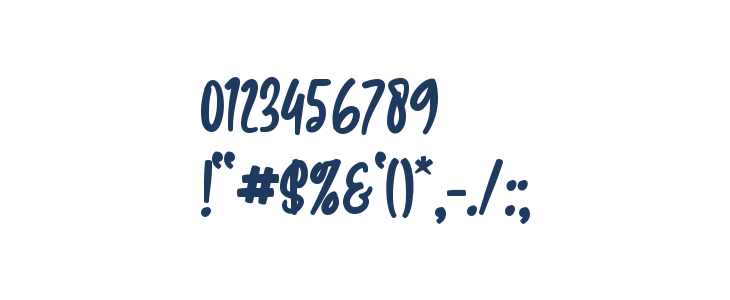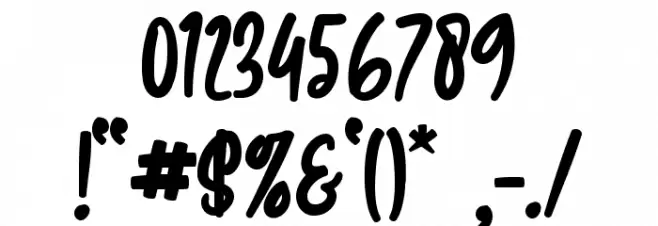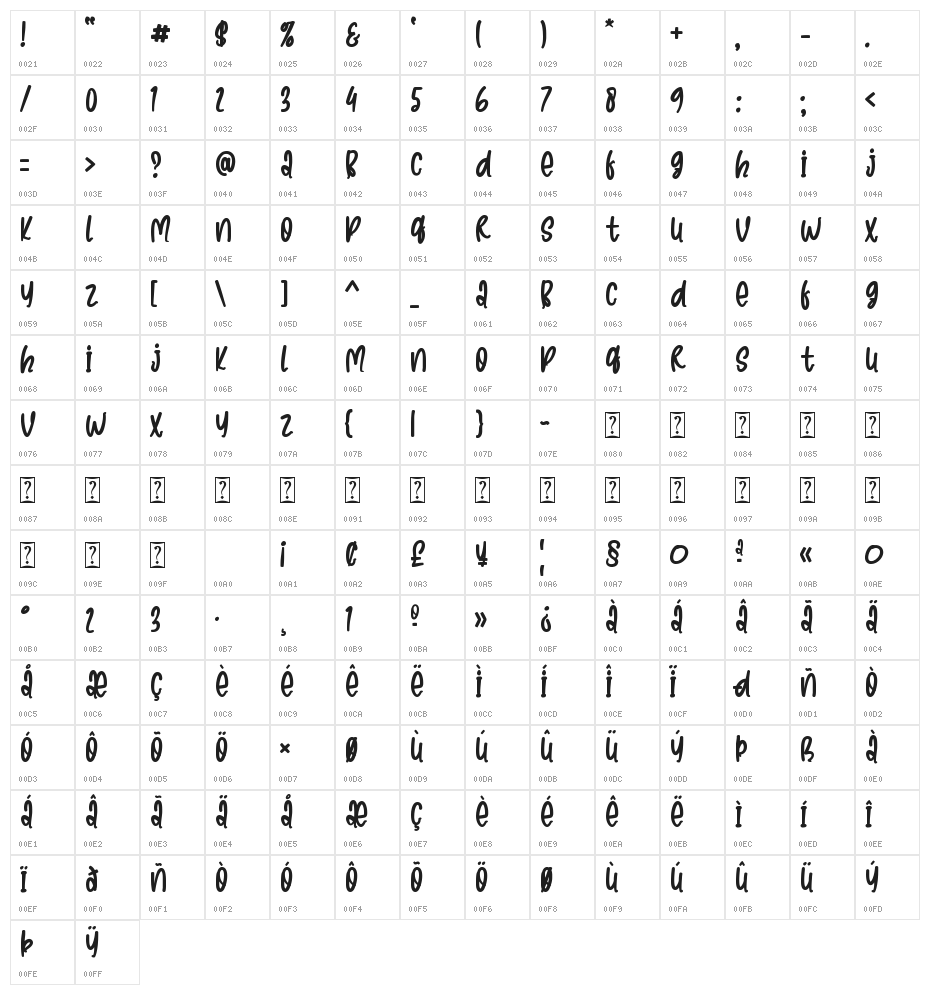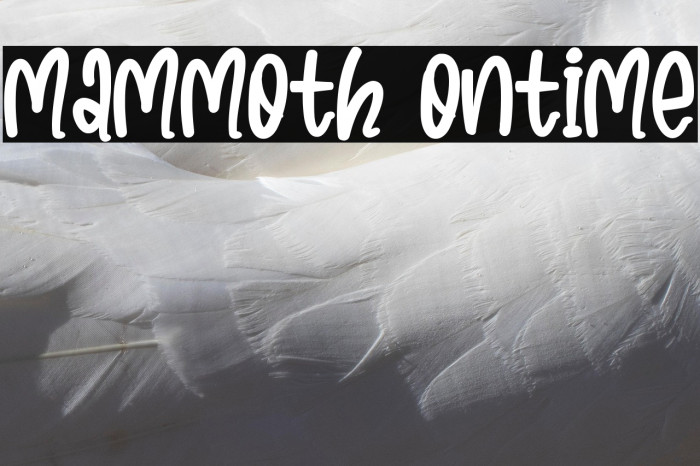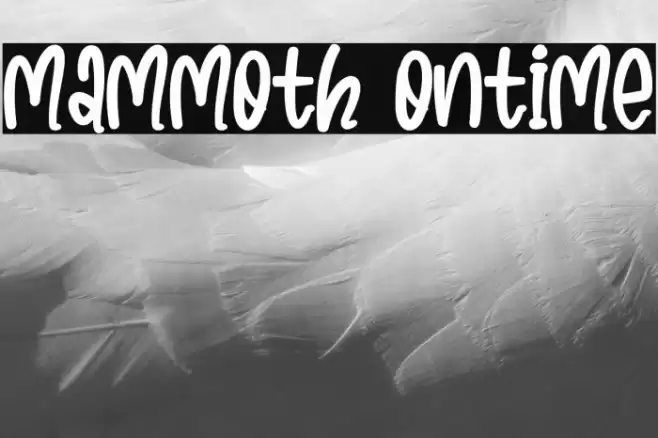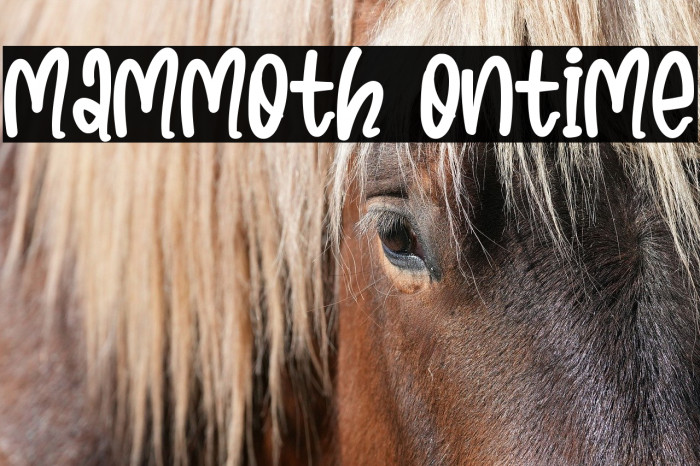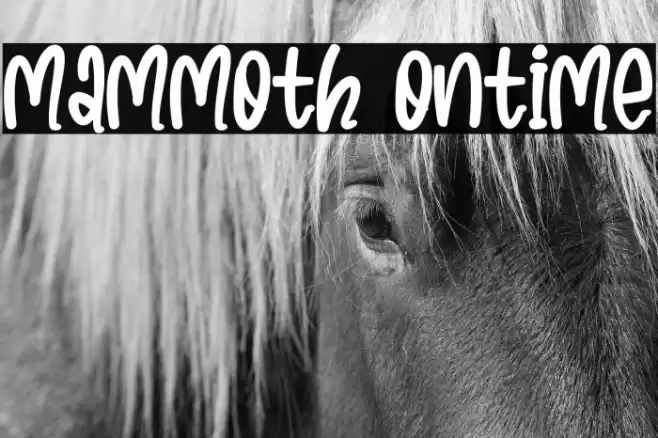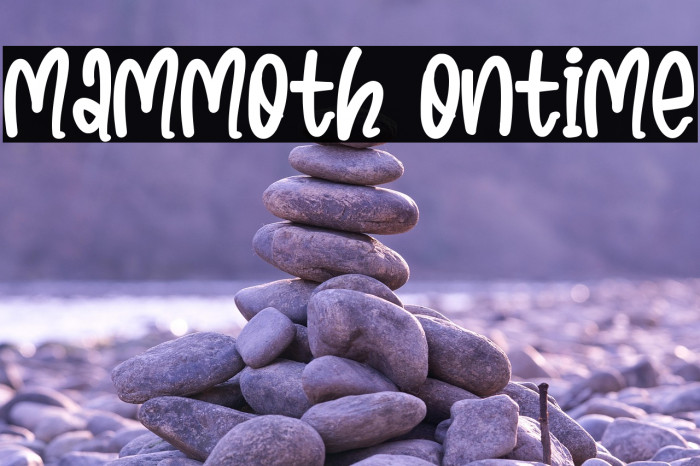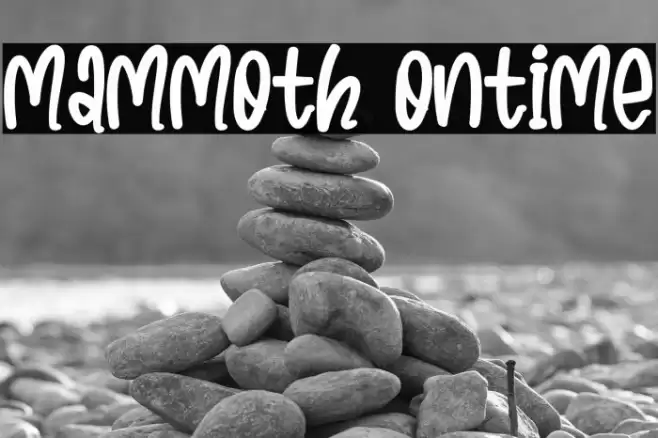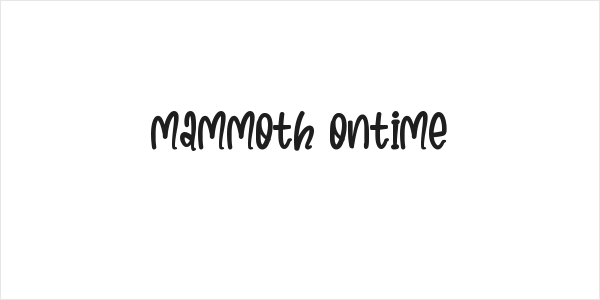
Mammoth Ontime Font
Mammoth Ontime Description
This font features a playful and bold handwritten style, characterized by its smooth, flowing curves and slightly irregular letterforms. The uppercase and lowercase letters maintain a consistent height, creating a harmonious appearance. The numbers and special characters follow the same playful aesthetic, making the font versatile for various creative projects. Its bold strokes and rounded edges give it a friendly and approachable feel, suitable for designs that require a personal touch.
| Proposed Projects | Ideal for greeting cards, children's books, playful branding, and social media graphics. |